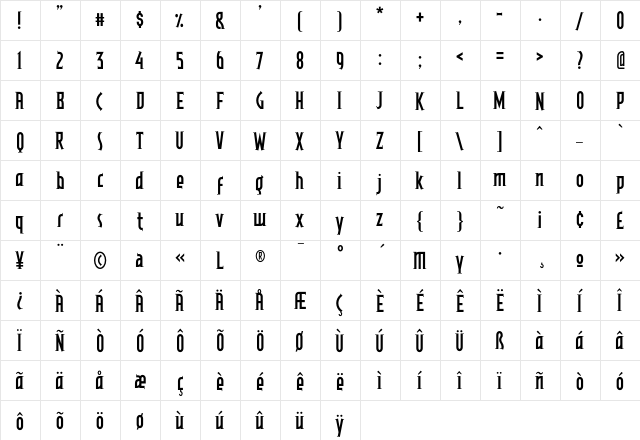
Konfactur One
Design Context for Konfactur Typeface
Konfactur offers clean, dependable letterforms without strong stylistic allegiance, making it a practical choice for designers who need flexibility.
Pro Tip: Pair Konfactur with a font of contrasting weight or personality to build a more expressive typographic hierarchy.